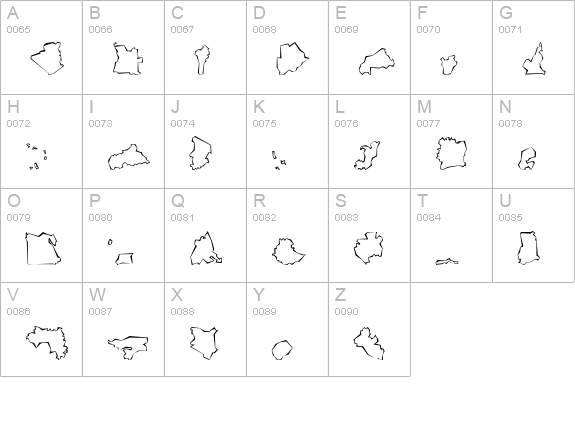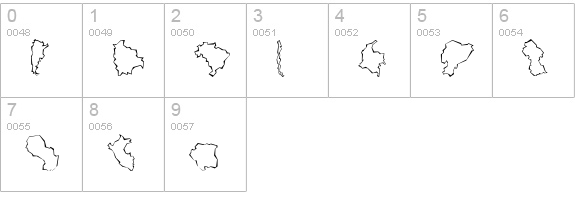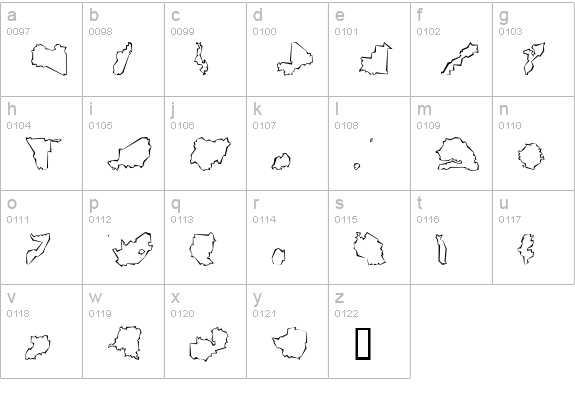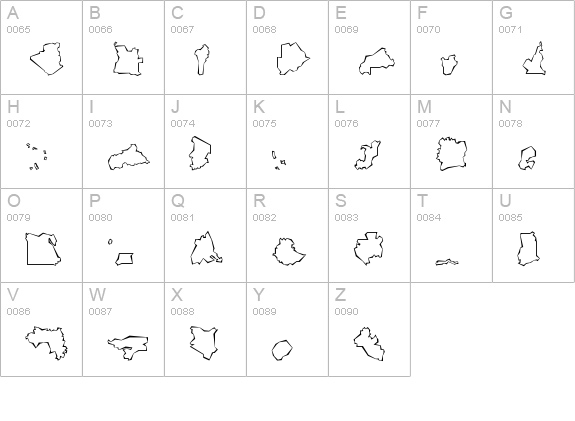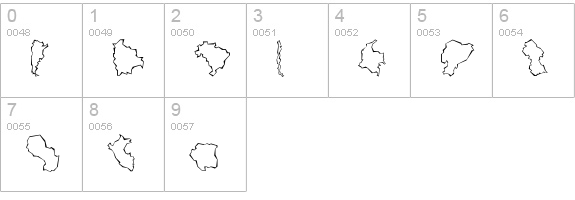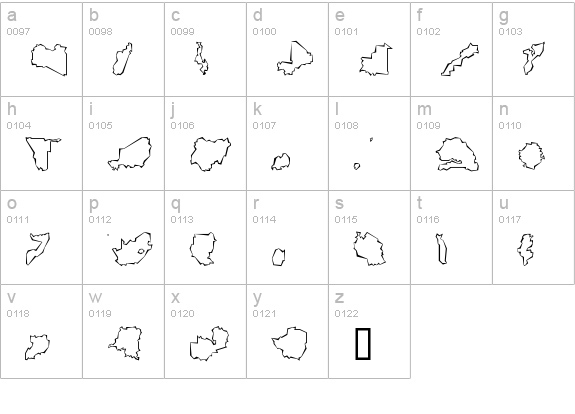
Mini Pics Global S Cutout Font Details
Mini Pics Global S Cutout font is a unique and creative display typeface that adds a fun and playful touch to any design. Its cutout style gives it a modern and trendy look, making it perfect for projects that require a bold and eye-catching font. This font is perfect for creating posters, headlines, logos, and more. Its versatile design makes it suitable for a wide range of projects, from advertising to branding to social media graphics. With its distinctive cutout letters, Mini Pics Global S Cutout font is sure to make your designs stand out from the crowd. Best of all, Mini Pics Global S Cutout font is available for free download at FontsMarket.com. So why wait? Give your designs a fresh and exciting look with this stylish and dynamic font today!